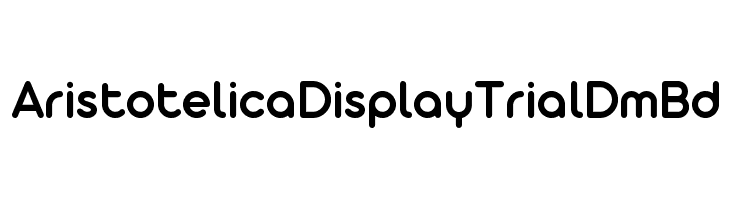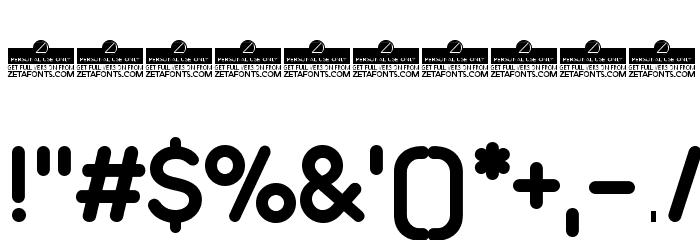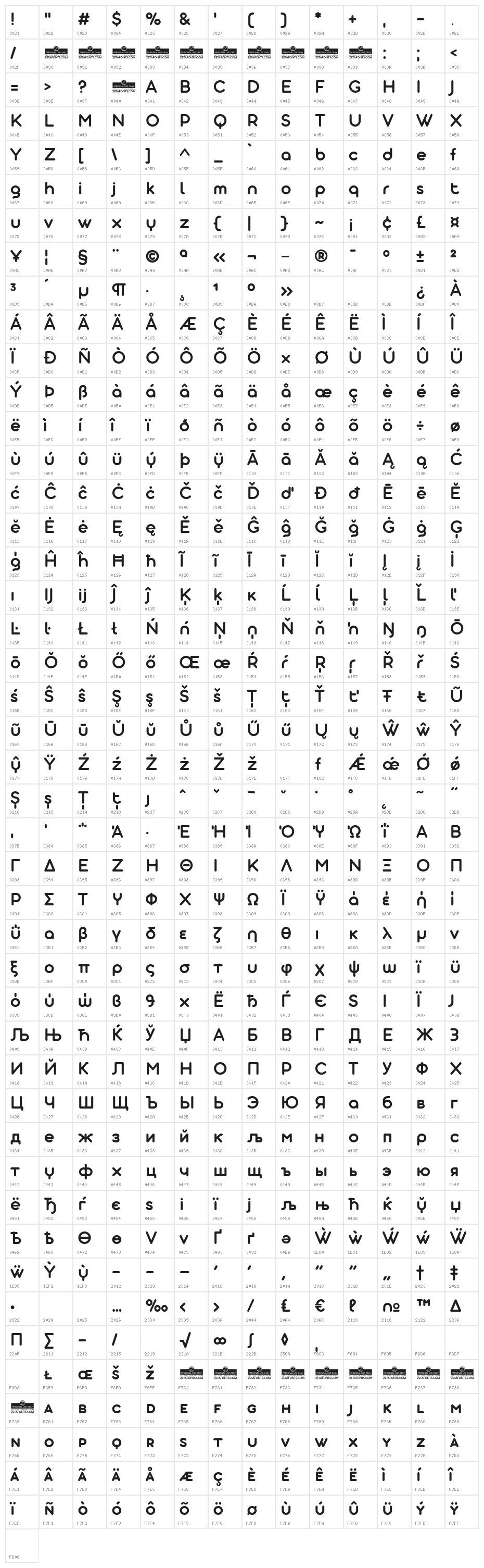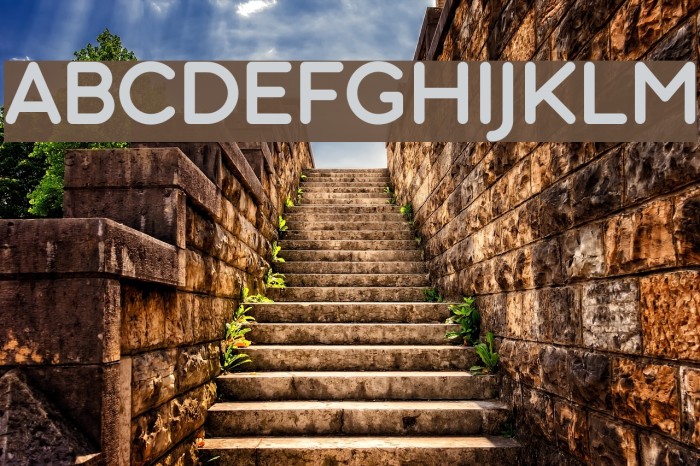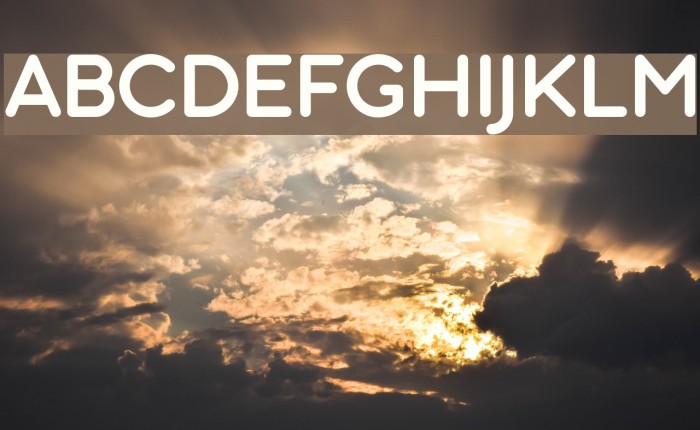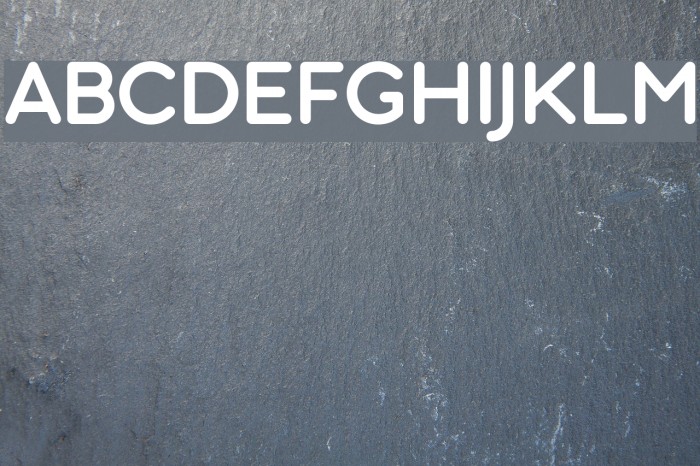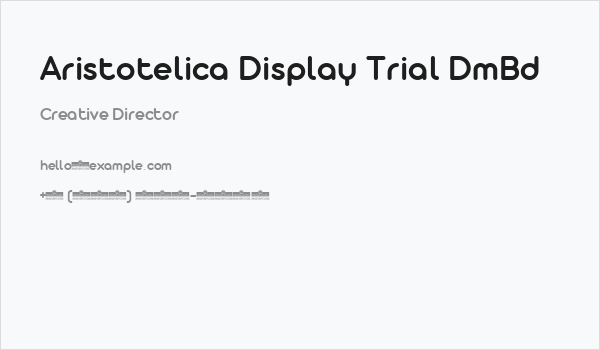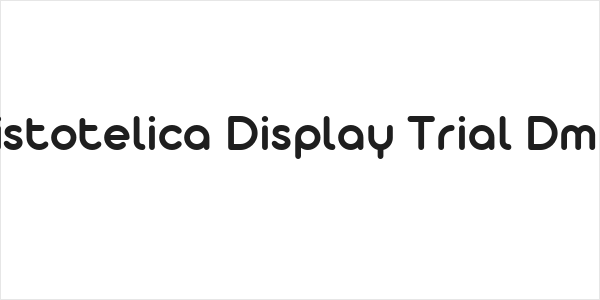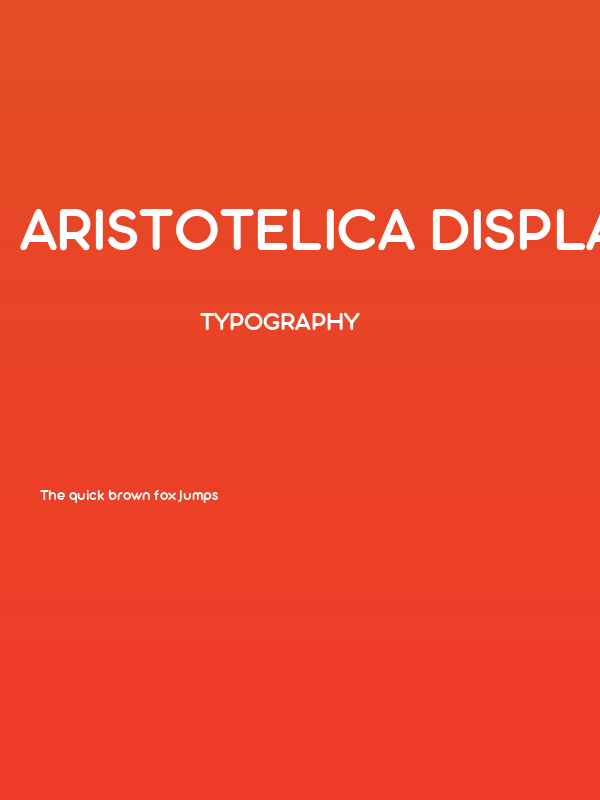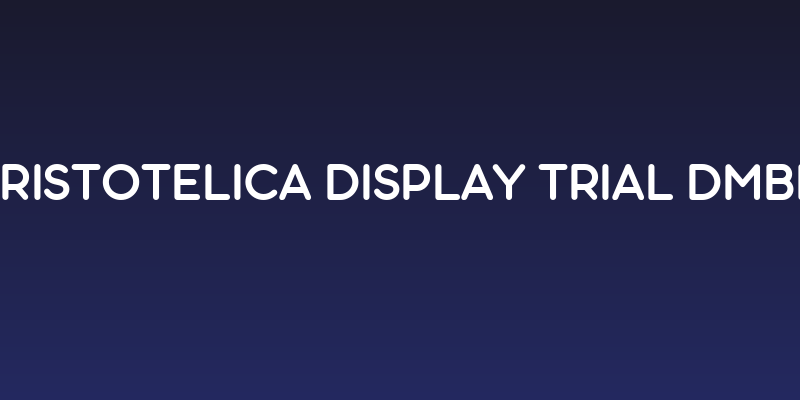
Aristotelica Display Trial DmBd Font
Aristotelica Display Trial DmBd Description
This font features a modern and clean design with rounded edges, giving it a friendly and approachable appearance. The characters are evenly spaced, contributing to its readability. The uppercase letters are bold and assertive, while the lowercase letters maintain a consistent style with a slightly playful touch. The numerals are clear and easy to distinguish, and the special characters are designed to match the overall aesthetic, ensuring a cohesive look across all elements. This font is versatile, suitable for both digital and print media, and can be used to convey a contemporary and professional tone.
| Proposed Projects | Ideal for branding, advertising, web design, and user interfaces. |